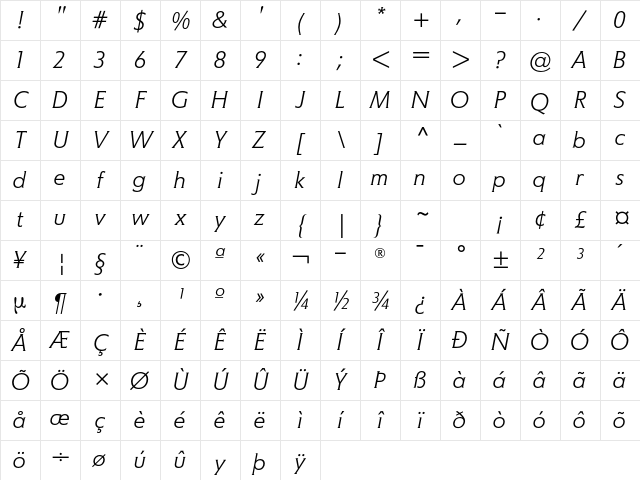
Memo Std Light Italic
Design Context for Memo Std
Memo Std is a composed and adaptable typeface that performs quietly and consistently across a wide range of design contexts. The slanted form adds forward momentum and visual energy. Its slender proportions lend an understated elegance to any composition.
Pro Tip: Use Memo Std for emphasis, pull quotes, and subheadings where its slanted energy can add rhythm to the layout.